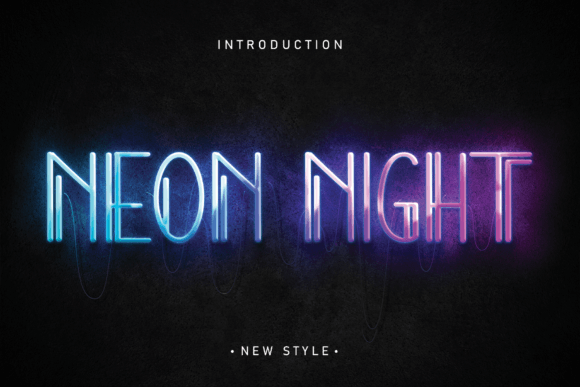
Journey into the realm of luminous brilliance with Neon Night Font, a captivating display font that radiates an electrifying charm. Inspired by the vibrant hues of city lights, this font embodies the essence of modern aesthetics, making it the perfect choice for those seeking a touch of sophistication and boldness in their designs.
With its meticulously crafted characters and dynamic letterforms, Neon Night Font commands attention effortlessly. Each stroke is imbued with a subtle glow, reminiscent of neon signs illuminating the night sky. Whether you're crafting wedding banners, posters, social media graphics, or eye-catching logos, this font will elevate your creations to new heights.
Neon Night Font's versatility knows no bounds, adapting seamlessly to diverse design styles and themes. Its bold and energetic presence adds a touch of intrigue and vibrancy to any project, while its clean and contemporary lines ensure readability and clarity. Whether you're a seasoned designer or just starting your creative journey, this font will unlock a world of possibilities, empowering you to make a lasting impact on your audience.
Don't settle for ordinary fonts that blend into the background. Embrace the brilliance of Neon Night Font and let your designs shine brighter than ever before. Experience the transformative power of this font and witness how it ignites your creativity, leaving an unforgettable impression on all who behold it.